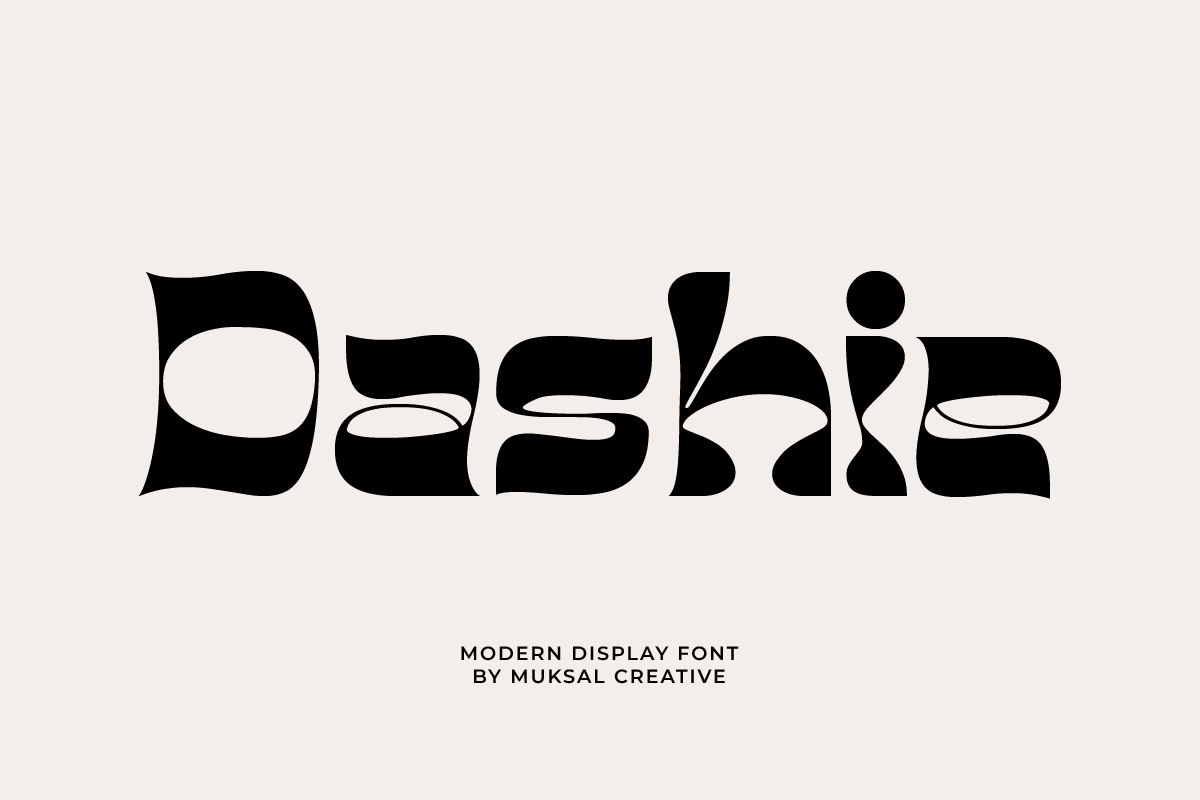
Introducing Dashie Font Free Download, a playful, retro-inspired typeface designed by Muksalcreative. This groovy font features bold, slightly distorted letterforms that exude a 1970s vibe, making it perfect for logos, posters, album art, and any project seeking a whimsical, vintage flair. Its unique style adds a touch of psychedelic charm to your designs. Download Dashie Font Free Download to explore its features in personal projects. For commercial use, please ensure you purchase the appropriate license. Elevate your designs with the nostalgic and funky appeal of Dashie Font Free Download